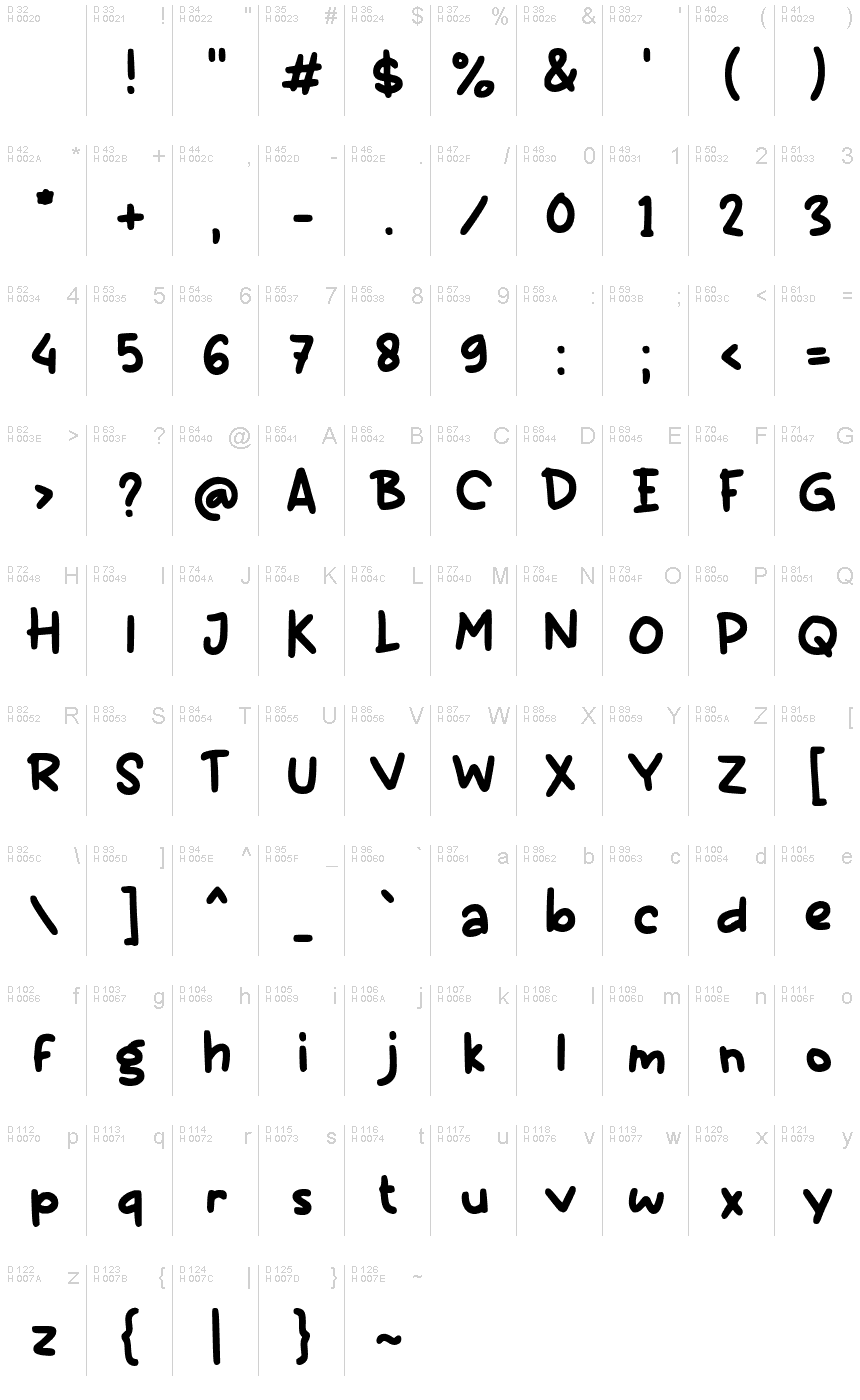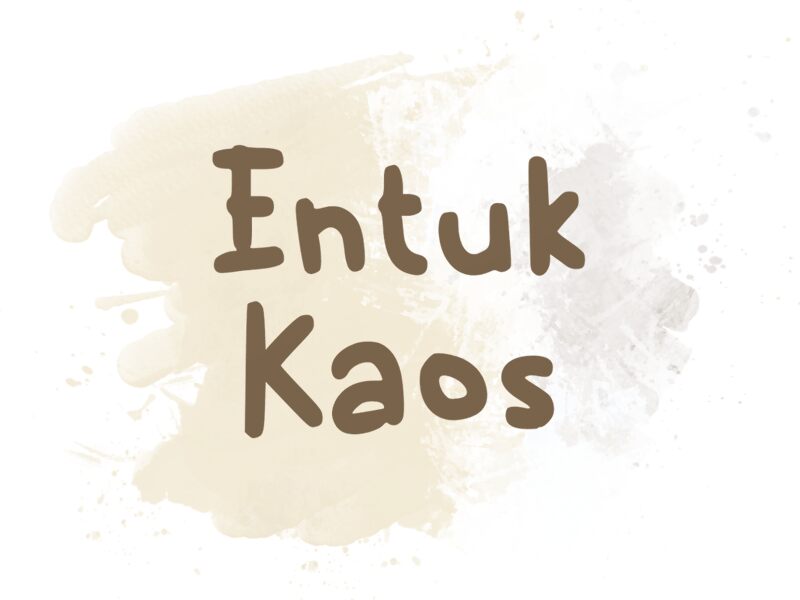
Entuk Kaos
Entuk Kaos is a stunning handwritten font designed by wep, perfect for projects that require a unique and personal touch. With its natural flow and organic lines, this semi-bold typeface adds an authentic feel to any design. The font's varying width helps create emphasis and hierarchy within text, making it suitable for both headlines and body copy. From wedding invitations to branding materials, Entuk Kaos is sure to make your project stand out. Its playful yet sophisticated style is perfect for anything from whimsical children's books to elegant restaurant menus. Let Entuk Kaos bring your words to life!